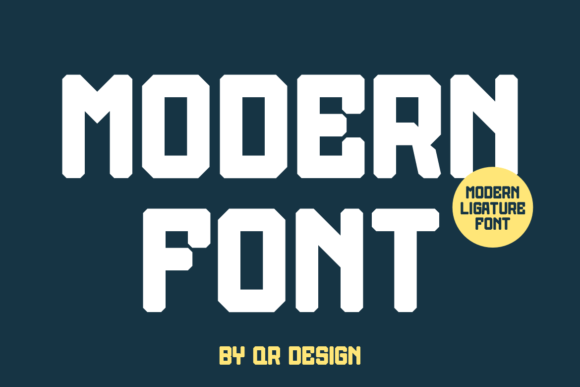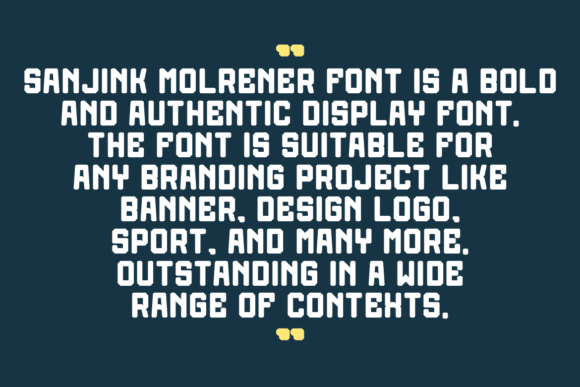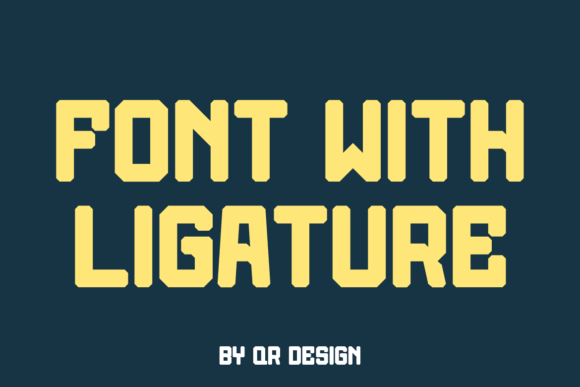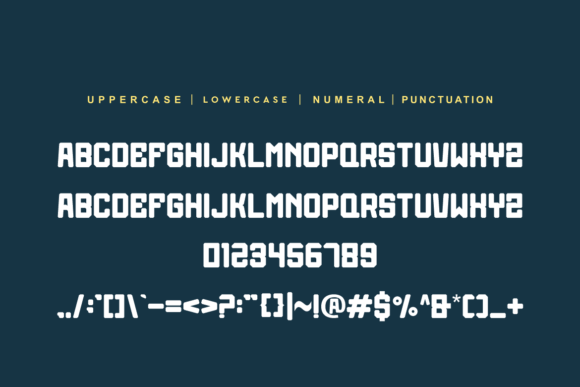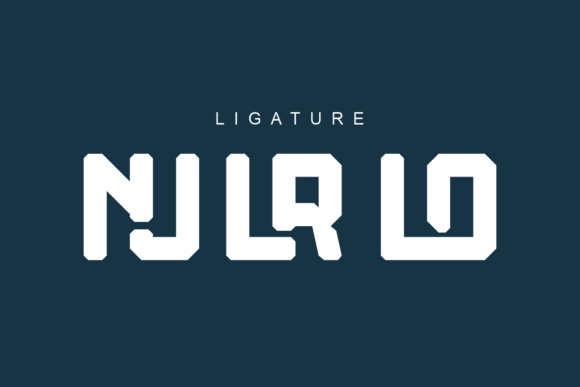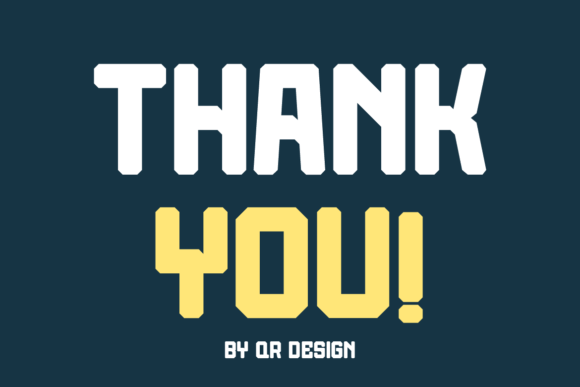
Introduction to Sanjink Molrener Font
Sanjink Molrener Font is a bold and authentic Sans Serif font.
This lovely font is suitable for any branding project like logo, t-shirt printing, sport, and many more Outstanding in a wide range of contexts.
Key Features of Sanjink Molrener Font
Why Choose Sanjink Molrener Font?
Sanjink Molrener Font offers exceptional quality and versatility, making it a valuable addition to your design toolkit. Whether you’re creating for personal projects or commercial use, Sanjink Molrener Font delivers professional results.